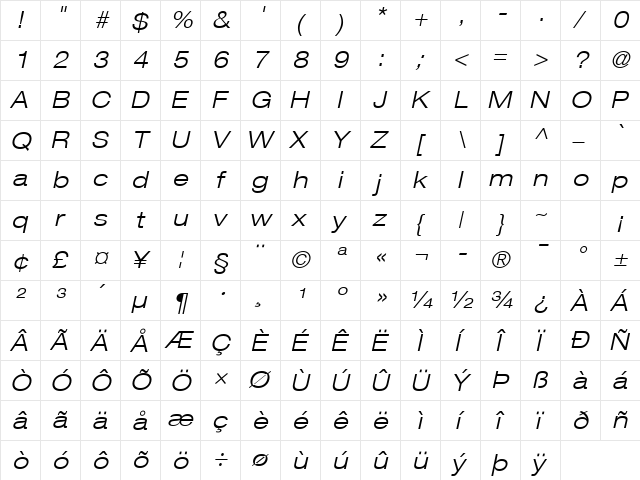
Helvetica Neue LT Com 43 Light Extended Oblique
| Foundry | Linotype GmbH |
| Designer | Linotype Design Studio |
Design Context for Helvetica Neue LT Com Typeface
Helvetica Neue LT Com is a composed and adaptable typeface that performs quietly and consistently across a wide range of design contexts. Its italic angle brings a sense of urgency and motion to the letterforms. Its slender proportions lend an understated elegance to any composition.
Pro Tip: Use Helvetica Neue LT Com for emphasis, pull quotes, and subheadings where its slanted energy can add rhythm to the layout.